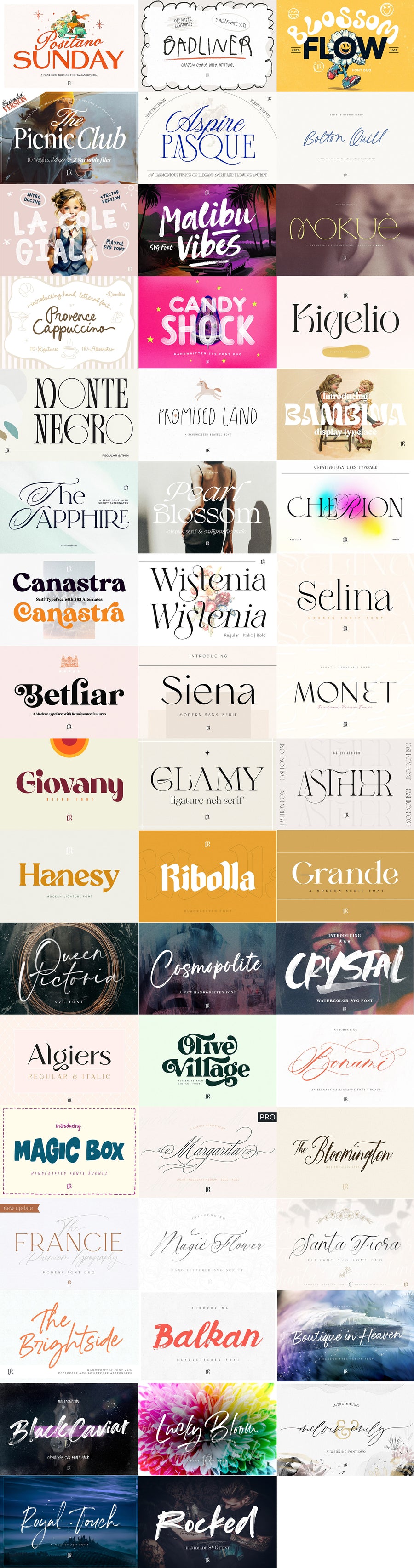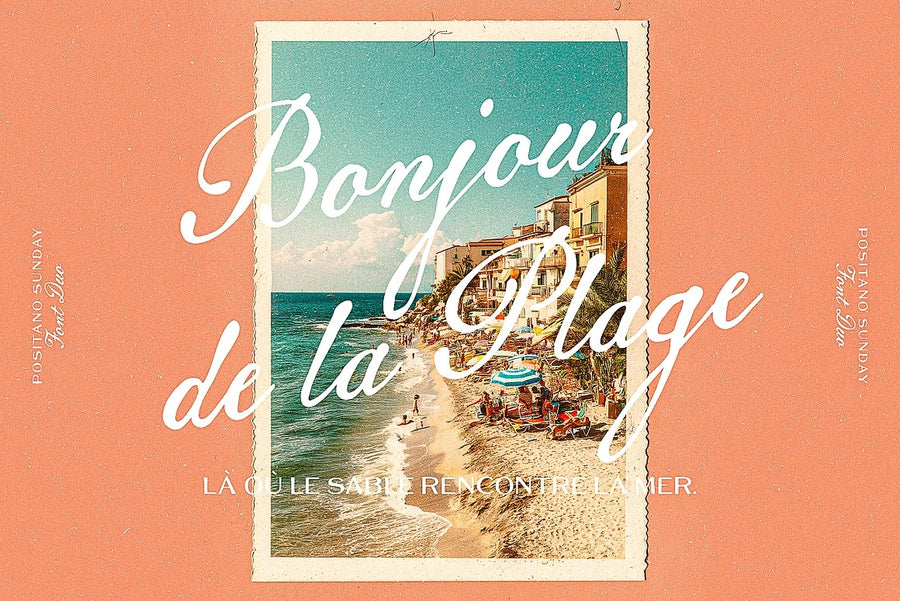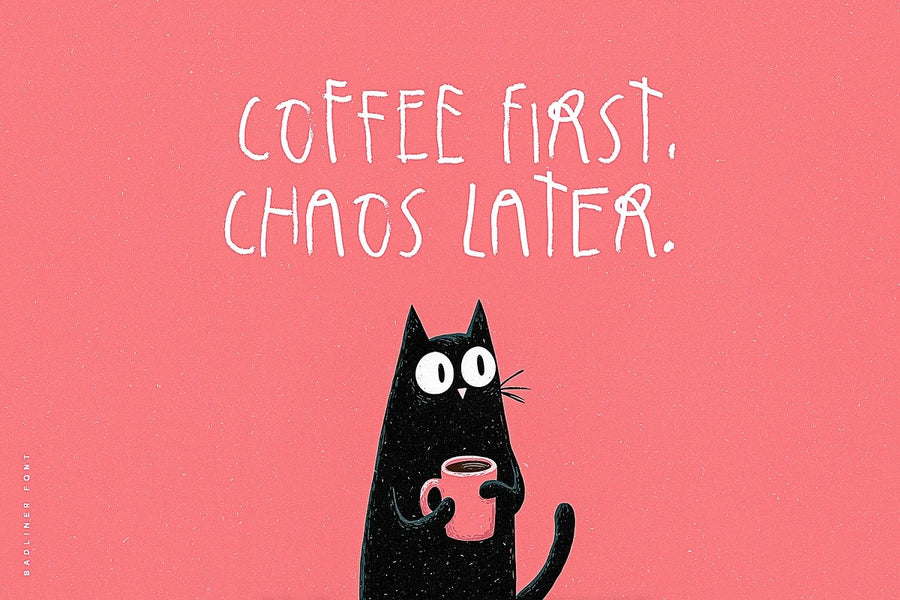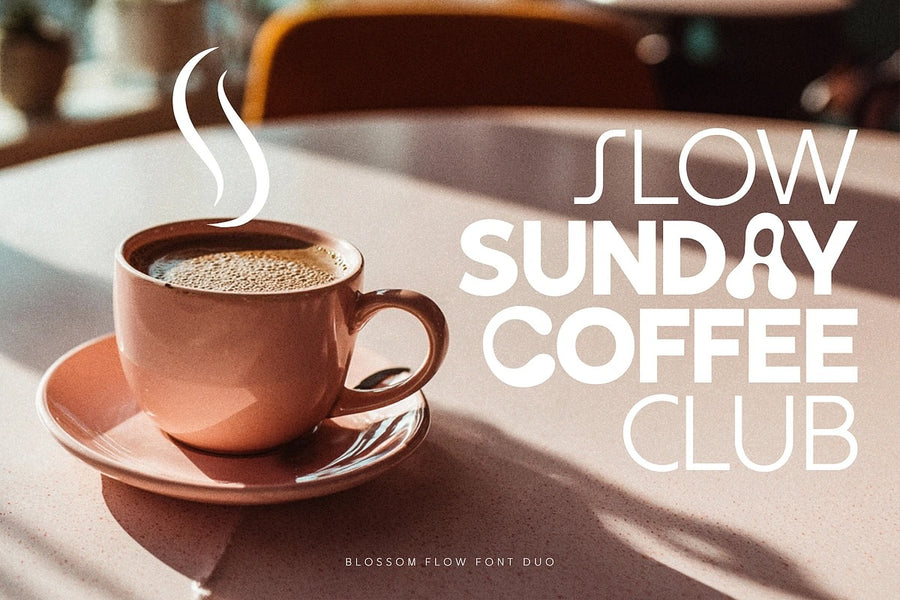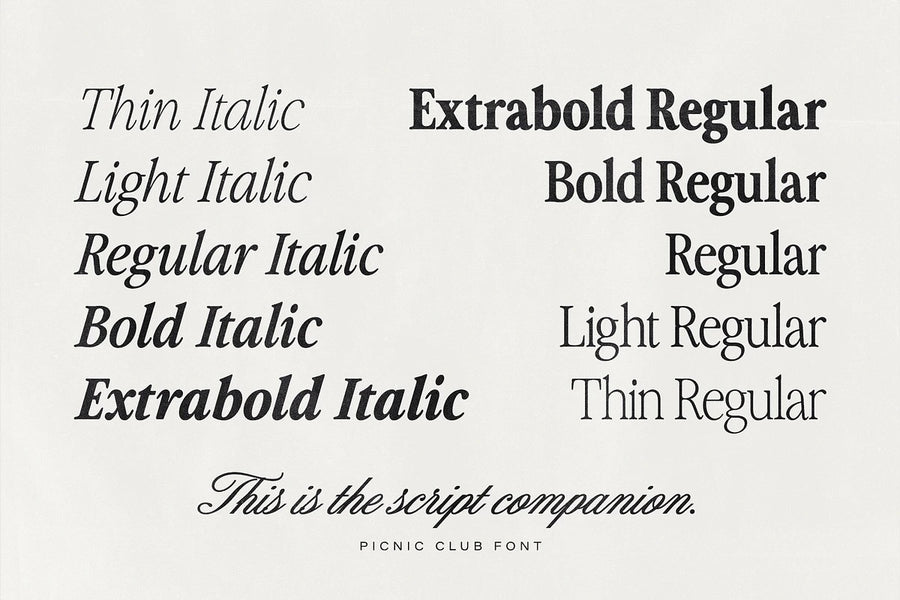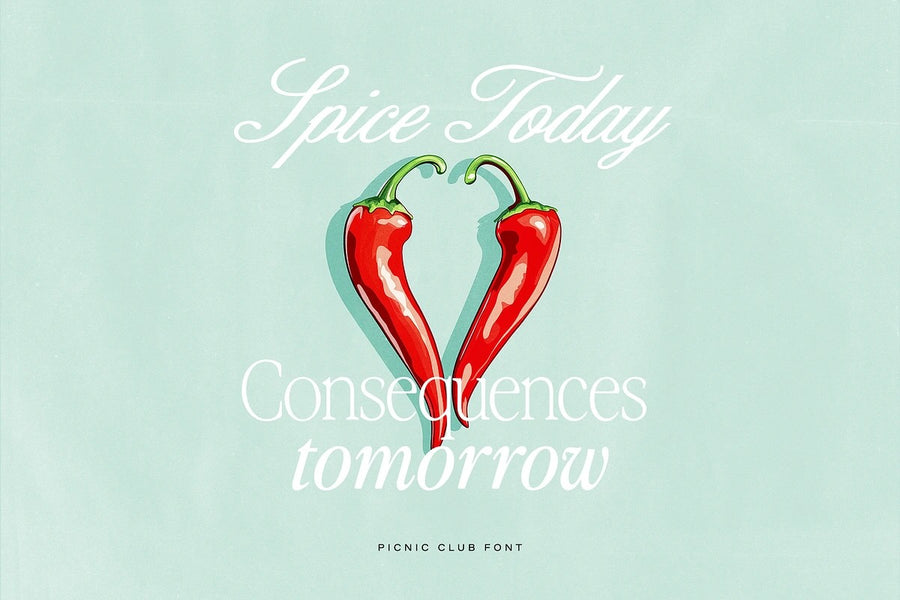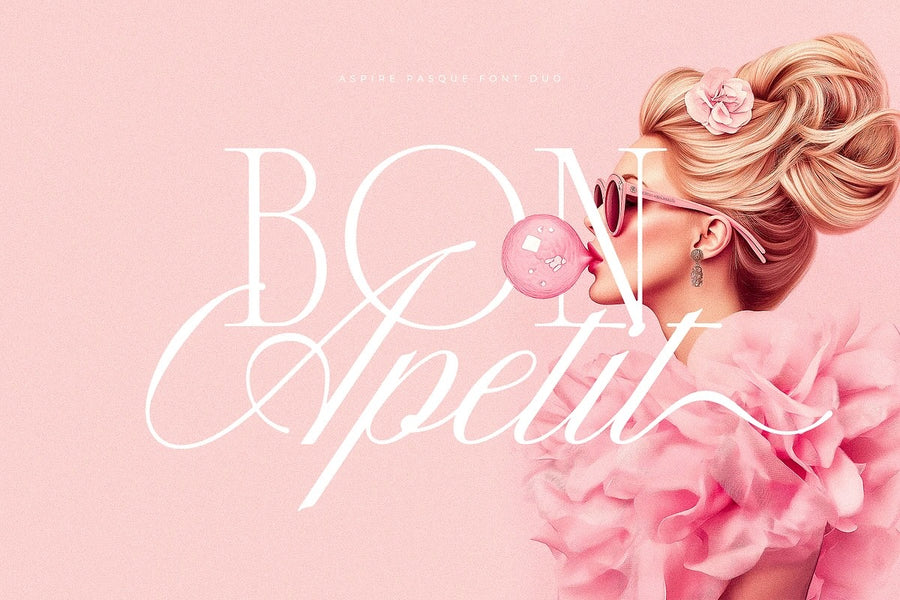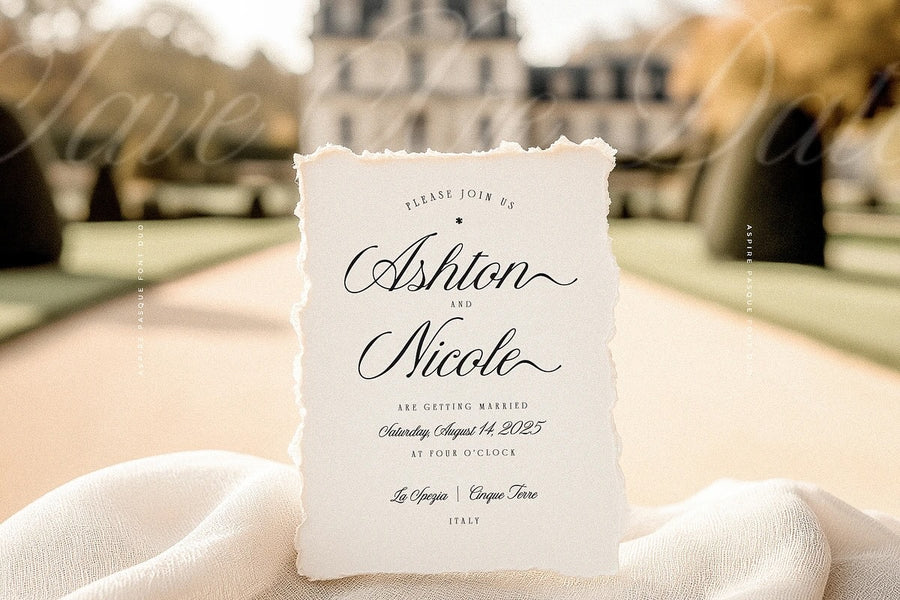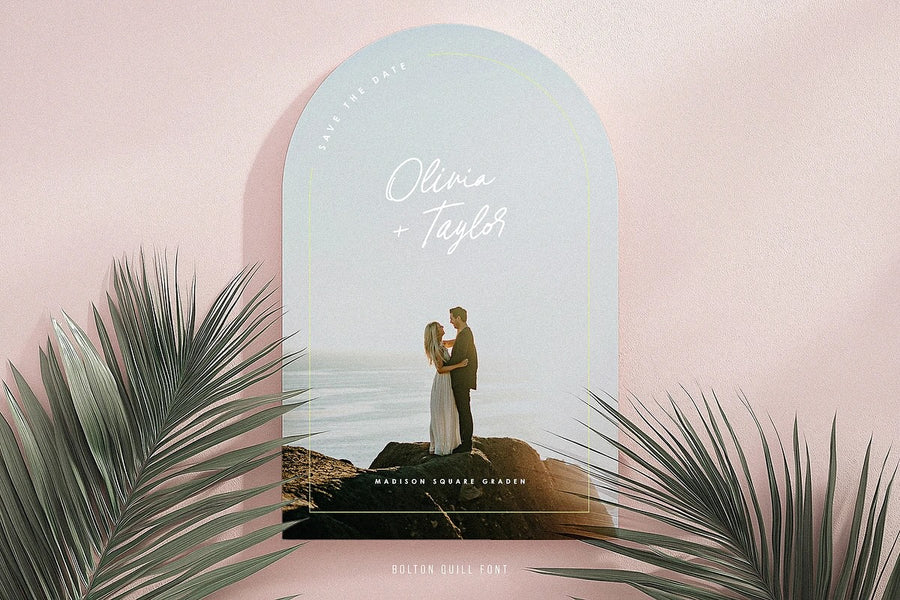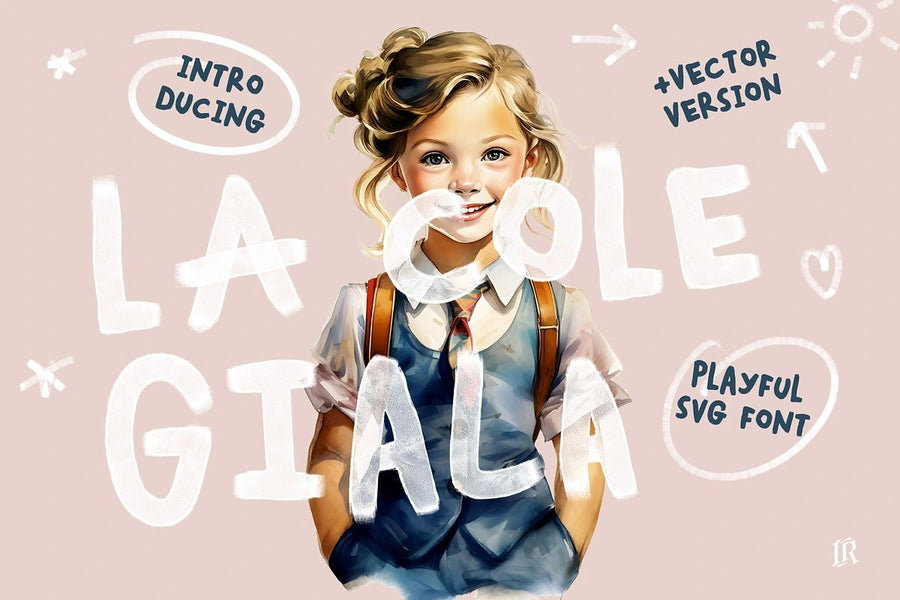
After three years, I’m finally releasing my very first Black Friday Font Bundle… and it’s a big one. Inside, you’ll find 50 products spanning a wide variety of styles: elegant serifs, clean sans-serifs, expressive scripts, natural handwritten fonts, bold retro typefaces, decorative SVG fonts, and more.
What’s inside:
- Positano Sunday Font Trio
- Badliner – Crayon Font
- Blossom Flow - Font Duo
- The Picnic Club 11 Fonts
- Aspire Pasque - Font Duo
- Bolton Quill Script
- La Colegiala SVG Font
- Malibu Vibes SVG Font
- Mokue | Elegant Serif
- Provence Cappuccino Script & Doodles
- Candy Shock SVG Font
- Kigelio | Display Serif
- Monte Negro | Display Serif
- Promised Land - Handwritten Font
- Bambina
- The Sapphire - A Calligraphic Serif
- Pearl Blossom - Modern Serif
- Cherion Typeface
- Canastra - Retro Serif
- Wistenia Typeface
- Selina - Modern Serif
- Betliar - A modern serif
- Siena Typeface
- Monet - Vintage Font
- Giovany - Retro Font
- GLAMY - Ligature Rich Serif
- Asther - Fashion Font
- Hanesy - Modern Serif Font
- Ribolla Font
- Grande
- Queen Victoria SVG
- Cosmopolite Font
- Crystal SVG Font
- Algiers - A Modern Sans Serif
- Olive Village - Vintage Font
- Bonami Font
- Magic Box - Handcrafted Fonts Bundle
- Margarita Pro
- The Bloomington Font
- Francie Font Duo
- Magic Flower SVG Font
- Santa Fiora SVG Font Duo
- The Brightside Font
- Balkan Font
- Boutique in Heaven Font
- Black Caviar SVG Font
- Lucky Bloom SVG Font
- Melvin and Emily Font Duo
- Royal Touch Font
- Rocked SVG Font